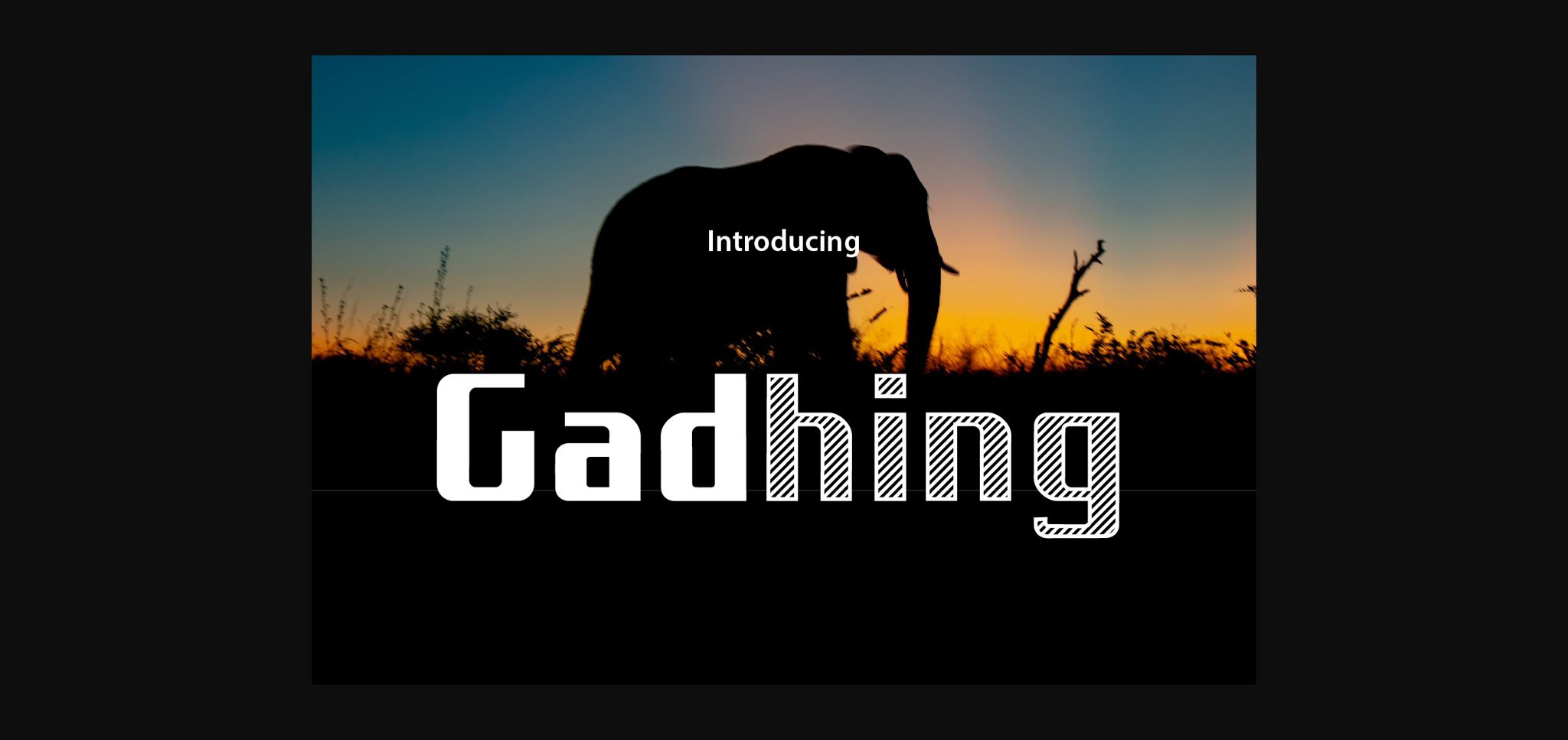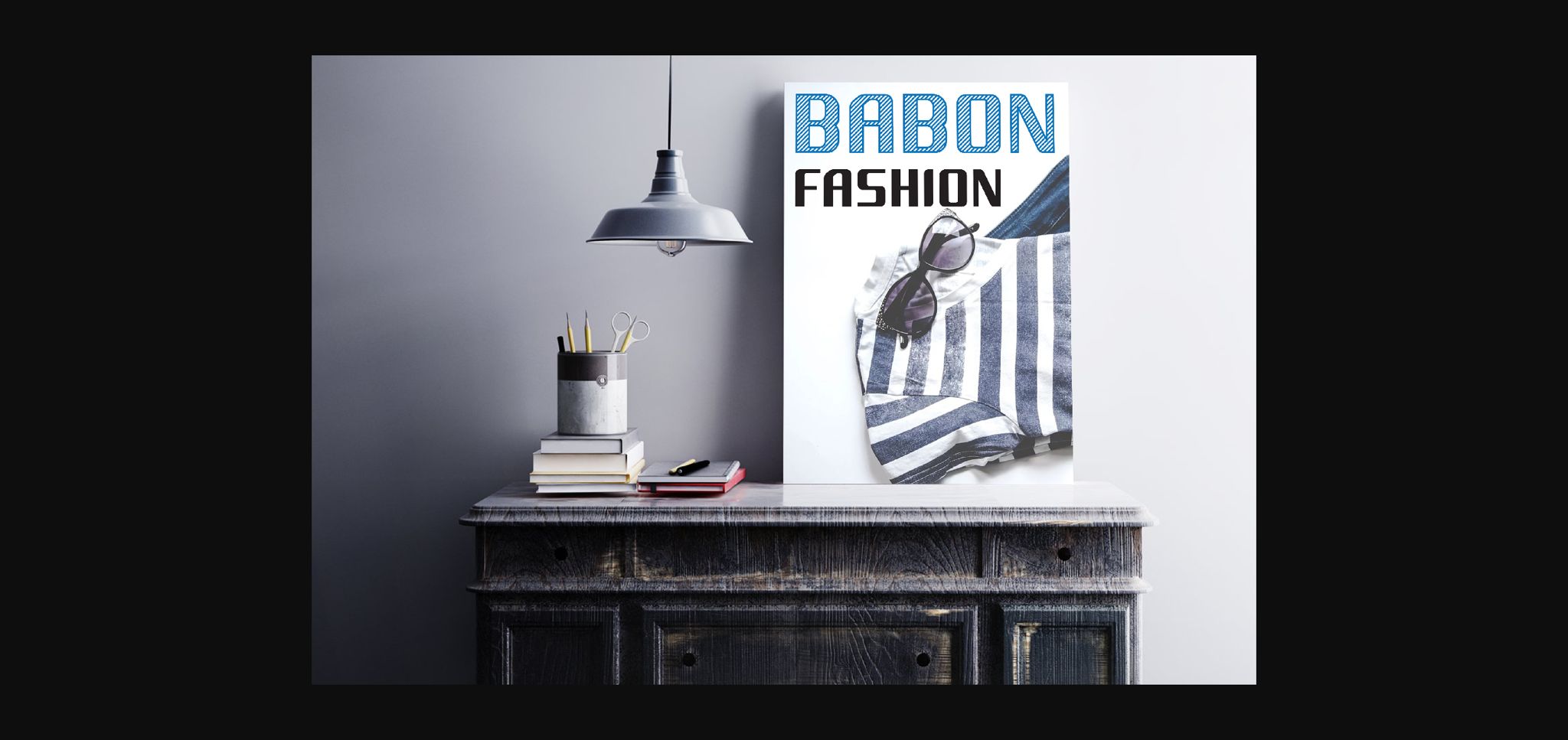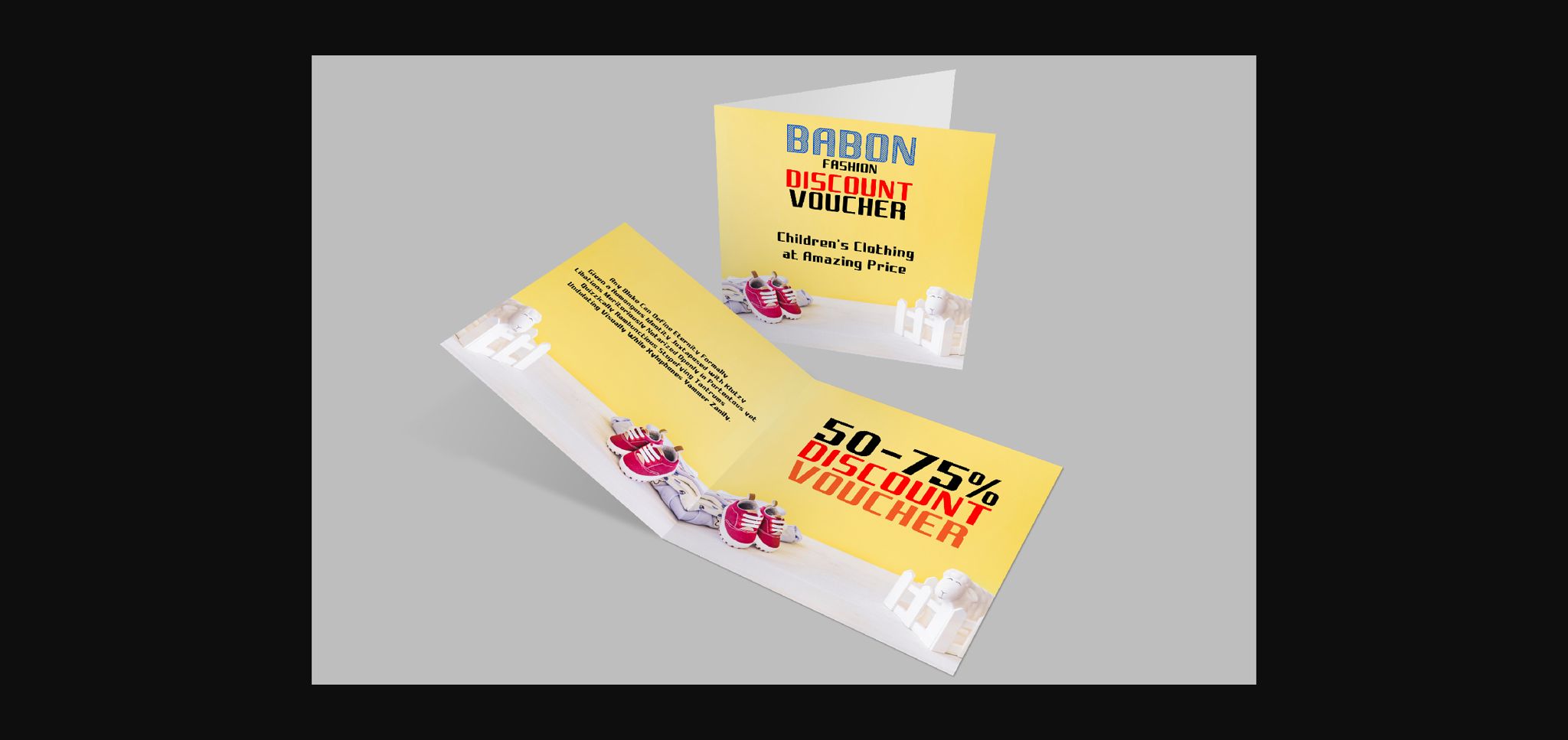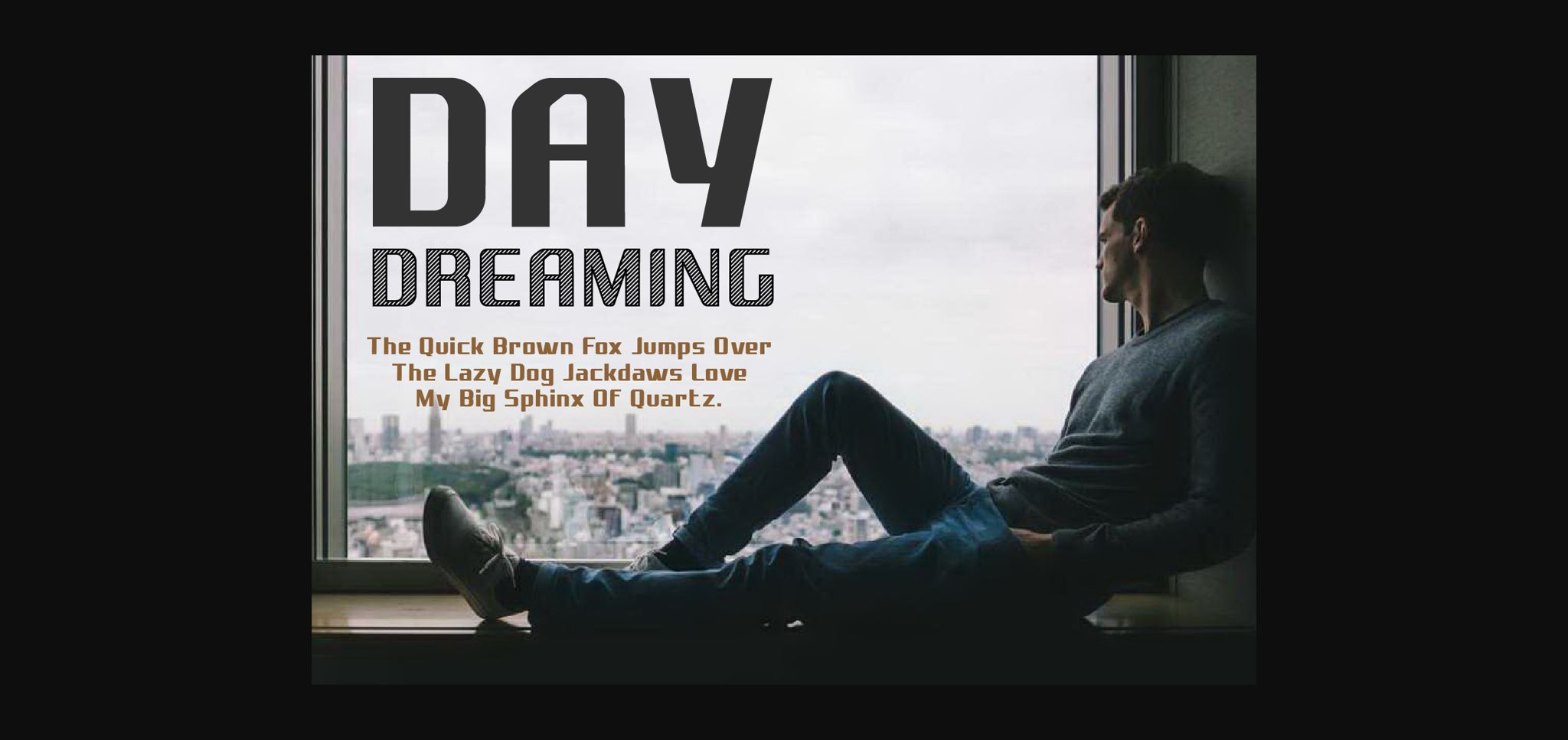
Gadhing Font
About Gadhing Font
Gadhing is a unique and interesting sans serif font. It can easily be matched to an incredibly large set of projects, so add it to your creative ideas and notice how it makes them stand out!